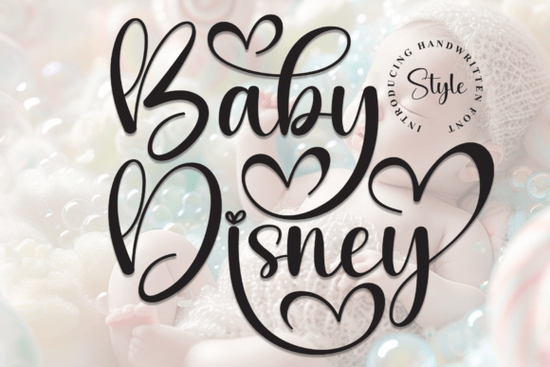
If you're looking for a friendly, hand-drawn script font that feels warm and personal especially for baby-themed projects the Baby Disney Font is a thoughtful choice. It’s not overly decorative or fussy; instead, it balances elegance with approachability, thanks to its smooth curves and natural rhythm. You’ll notice how the letters connect with gentle ease, like something written slowly and with care not rushed or robotic. That makes it especially well-suited for baby shower invites, milestone cards, nursery wall art, or even soft-branded baby product labels.
When does this font work best?
This isn’t a one-size-fits-all script it shines in moments where warmth and sincerity matter most. Think of a delicate “Welcome Little One” banner, a custom onesie design, or a keepsake birth announcement. Because it leans slightly casual but never sloppy, it fits comfortably in both modern minimalist layouts and gently romantic themes. Designers working on print-on-demand baby apparel, digital planners for new parents, or handmade greeting card kits often find it pairs well with soft pastel palettes and simple line illustrations.
How does it compare to other popular script fonts?
Unlike tightly spaced or highly formal scripts, Baby Disney Font gives breathing room between letters making it more legible at smaller sizes, like on tags or social media thumbnails. It’s also less ornate than many wedding-focused scripts (though it does work beautifully for baby showers hosted at wedding venues), and it avoids the bouncy playfulness of some children’s fonts so it doesn’t feel out of place on products meant for adults, like maternity journals or parenting blog graphics.
We’ve seen small business owners use it for Etsy baby blanket tags and Shopify store banners. Crafters apply it to vinyl-cut onesies and wooden milestone blocks. Lifestyle bloggers choose it for Pinterest quote graphics about motherhood, and freelance designers include it in branding packages for pediatric therapists or newborn photographers. It’s also a quiet favorite among educators making printable growth charts or classroom welcome signs for preschool teachers.
One thing users consistently mention: it prints cleanly, even on textured cardstock or kraft paper. Unlike some ultra-thin scripts, the strokes have enough weight to hold up in physical form no fading or broken lines at 12 pt or larger. And because it’s designed with consistent spacing, alignment stays predictable across multi-line text boxes something that saves real time when building templates for recurring projects.